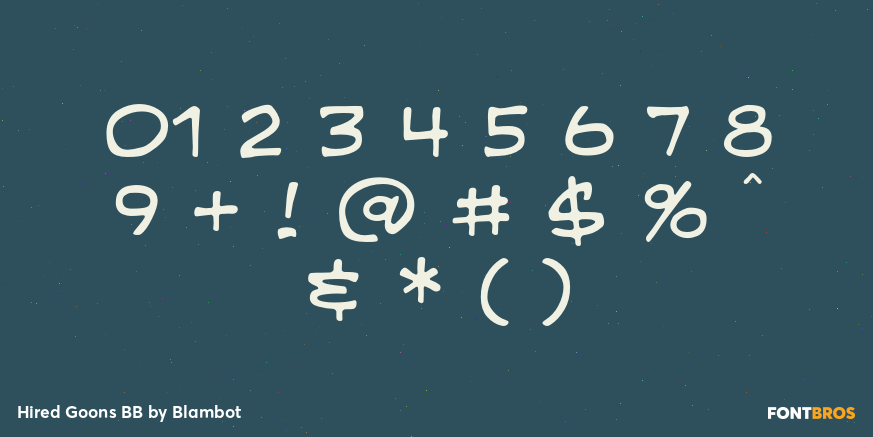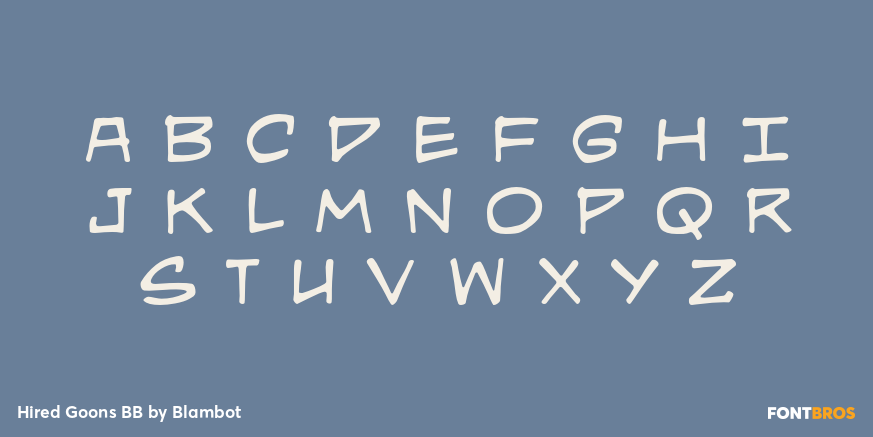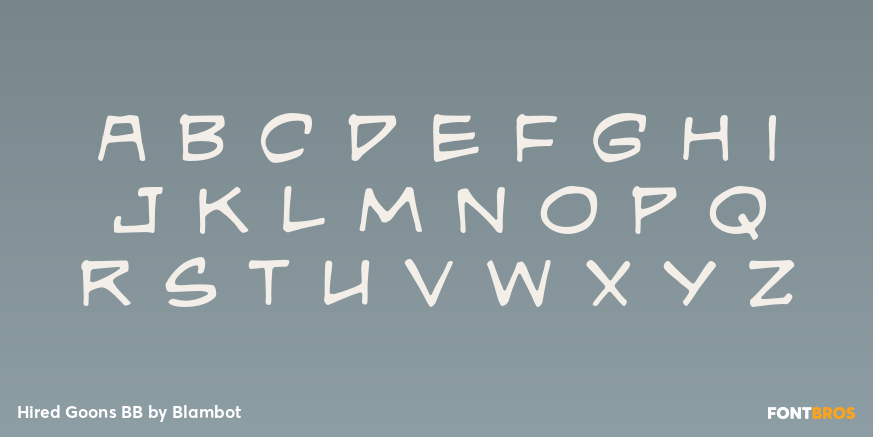
Hired Goons BB
Font Family by Blambot
Here's a font with a black eye, a split lip, and a pair of brass knuckles hidden in its back pocket!
Regular, Italic and Bold included as well as dozens of European characters.